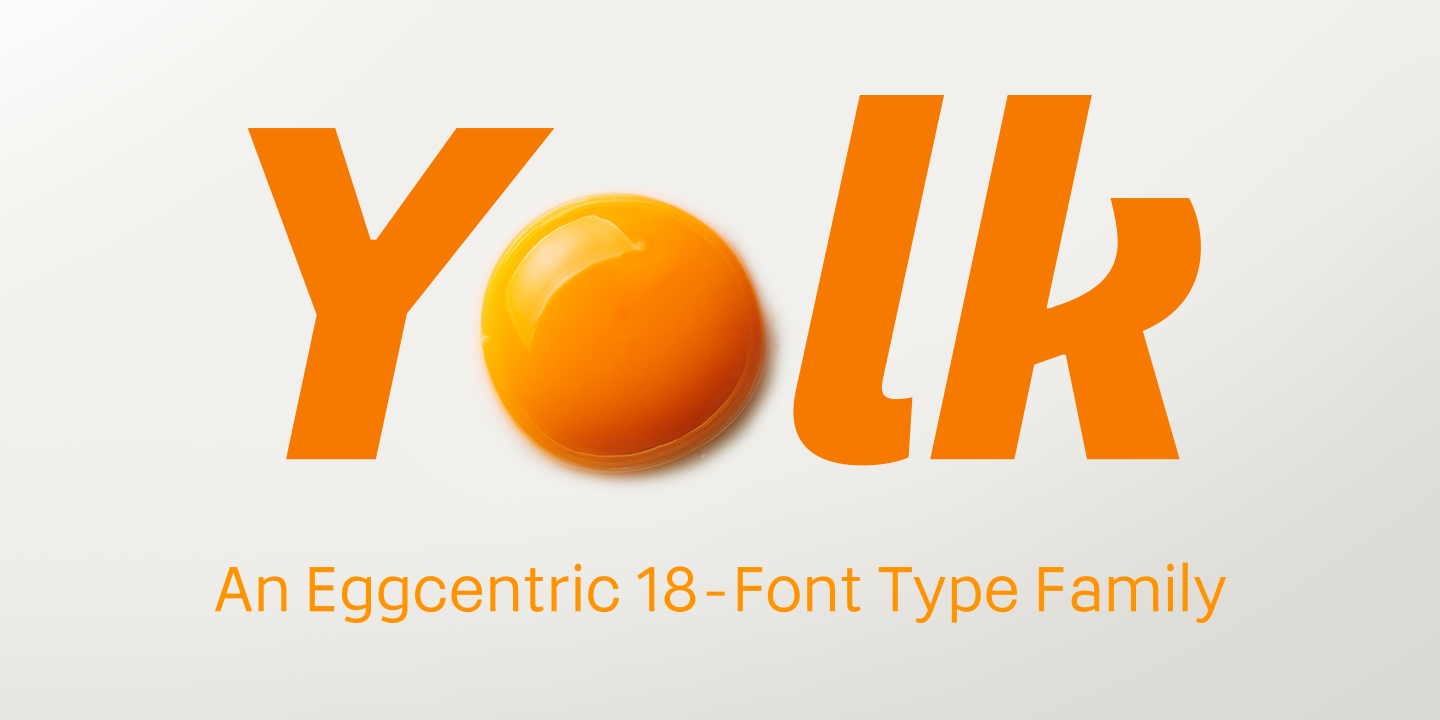
This sunny typeface is perfect for breakfast restaurants, farm-fresh food brands, organic egg producers, sunny morning cafes, golden hour photography, vitamin supplement companies, bright lifestyle brands, cheerful children's products, warm family dining, morning routine apps, nutritious food packaging, and sunshine-inspired marketing campaigns. The font's warm design makes it ideal for projects that celebrate morning freshness, nutritious beginnings, and the golden warmth of sunrise moments that start each day with energy and optimism.
Yolk Font is exciting because it embodies sunny warmth and nutritious vitality through its golden letterforms and sunrise-inspired character structure. The font's rounded curves and bright proportions create an atmosphere of freshness, nourishment, and morning energy, making it perfect for brands that want to convey warmth, nutrition, and the appealing glow of healthy breakfast foods. Its sunny personality ensures instant warmth while maintaining excellent readability across various food applications.
The Yolk Font family includes multiple sunny variations: Light Dawn, Regular Sunrise, Medium Golden, Bold Sunshine, and Black Solar weights, each available in standard and rounded versions. Special breakfast editions feature sunny alternates, farm ornaments, and nutrition symbols that enhance the font's wholesome appeal, providing designers with comprehensive tools for creating authentic morning-focused communications.
Brighten design with golden warmth using Yolk Font Free Download – a typeface that represents sunny nutrition and morning vitality. Whether you're developing breakfast branding, farm food materials, or sunshine lifestyle campaigns, this font delivers the warm presence and nutritious appeal your projects need while ensuring exceptional performance and golden impact across all breakfast and nutrition applications.